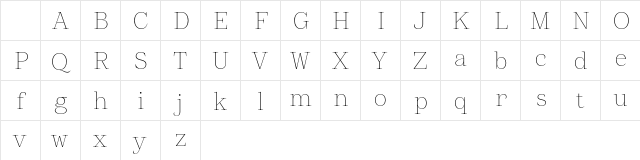
Klimaks Demo Thin is a composed and adaptable typeface that performs quietly and consistently across a wide range of design contexts. Its slender proportions lend an understated elegance to any composition.